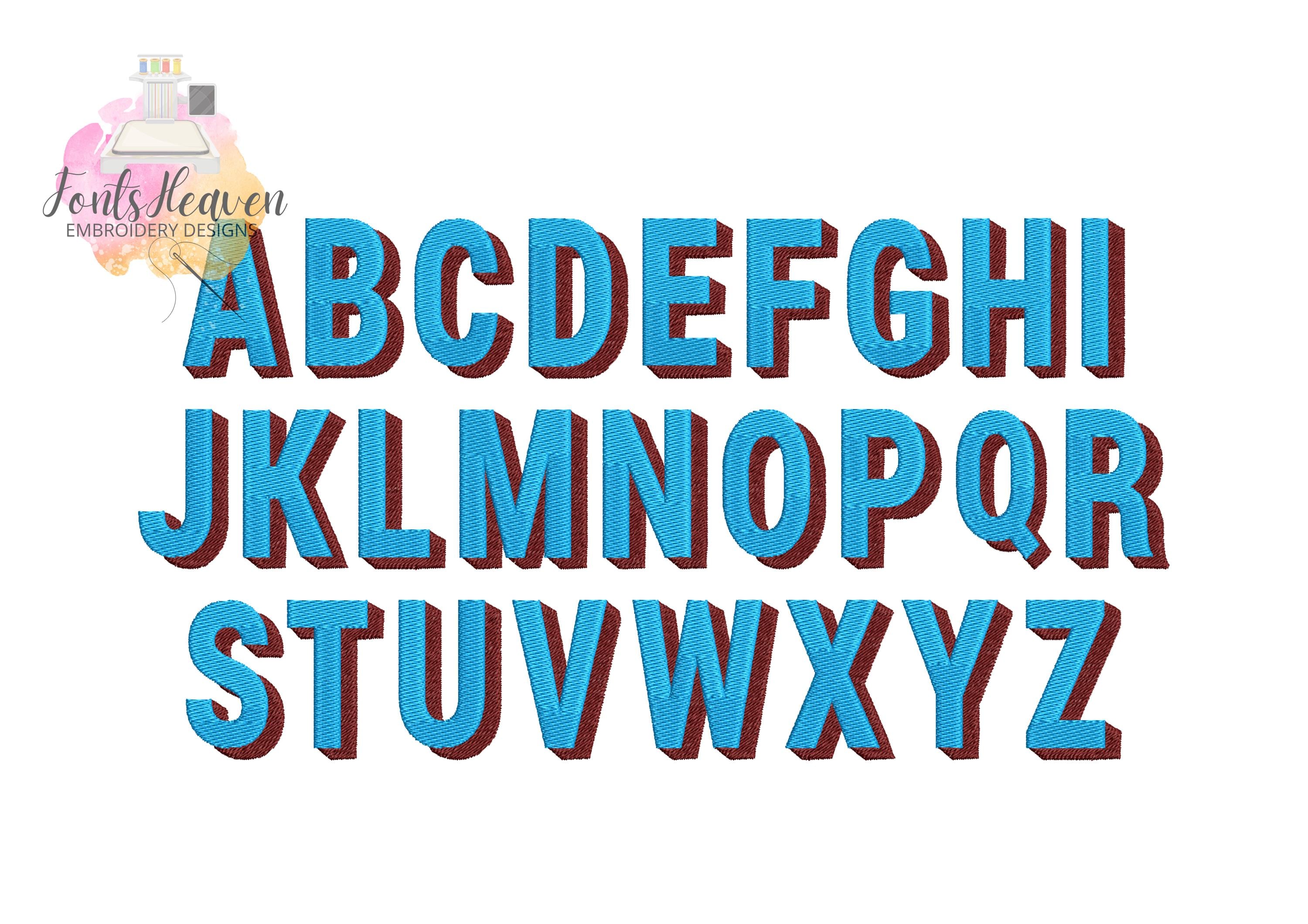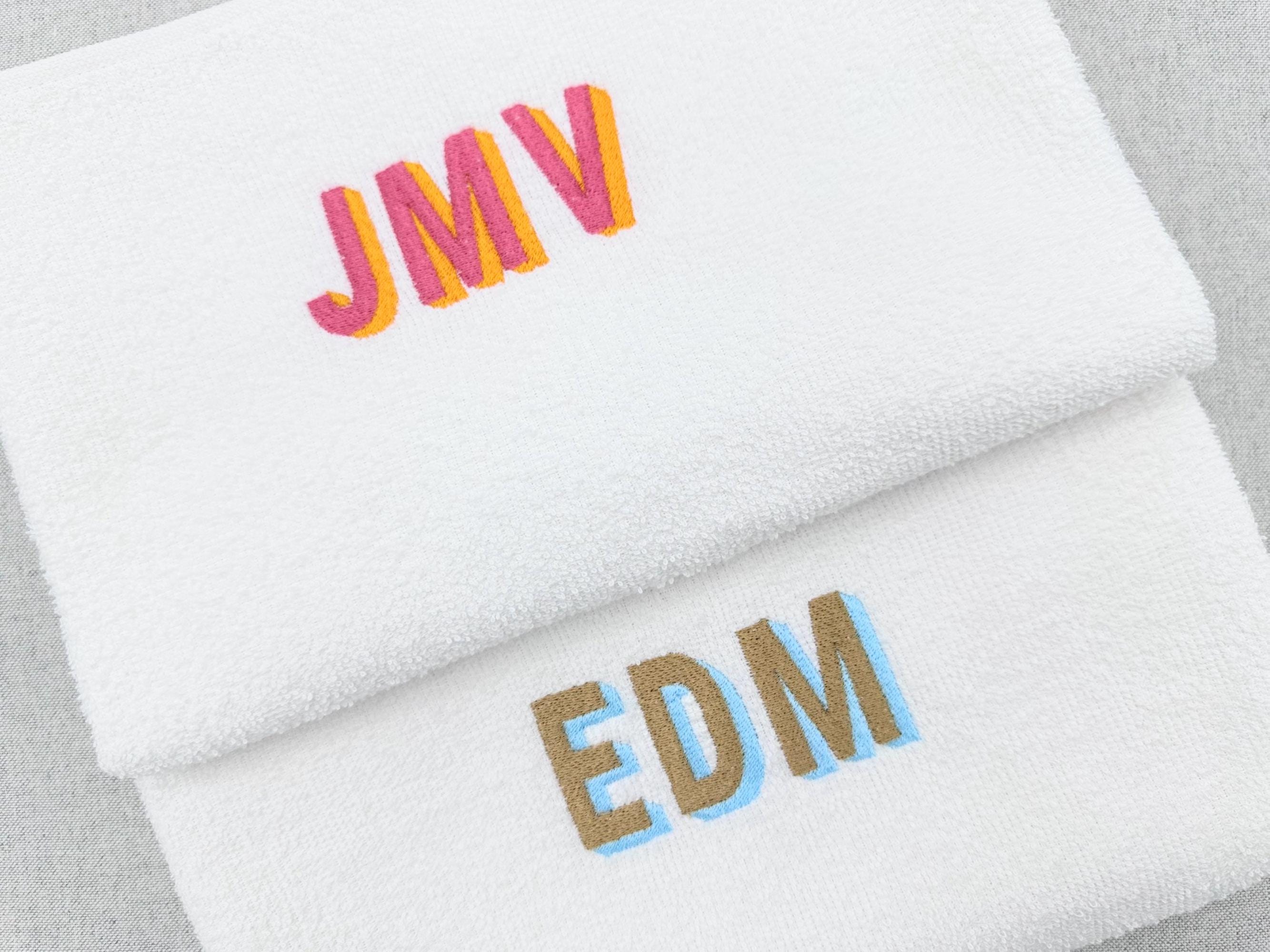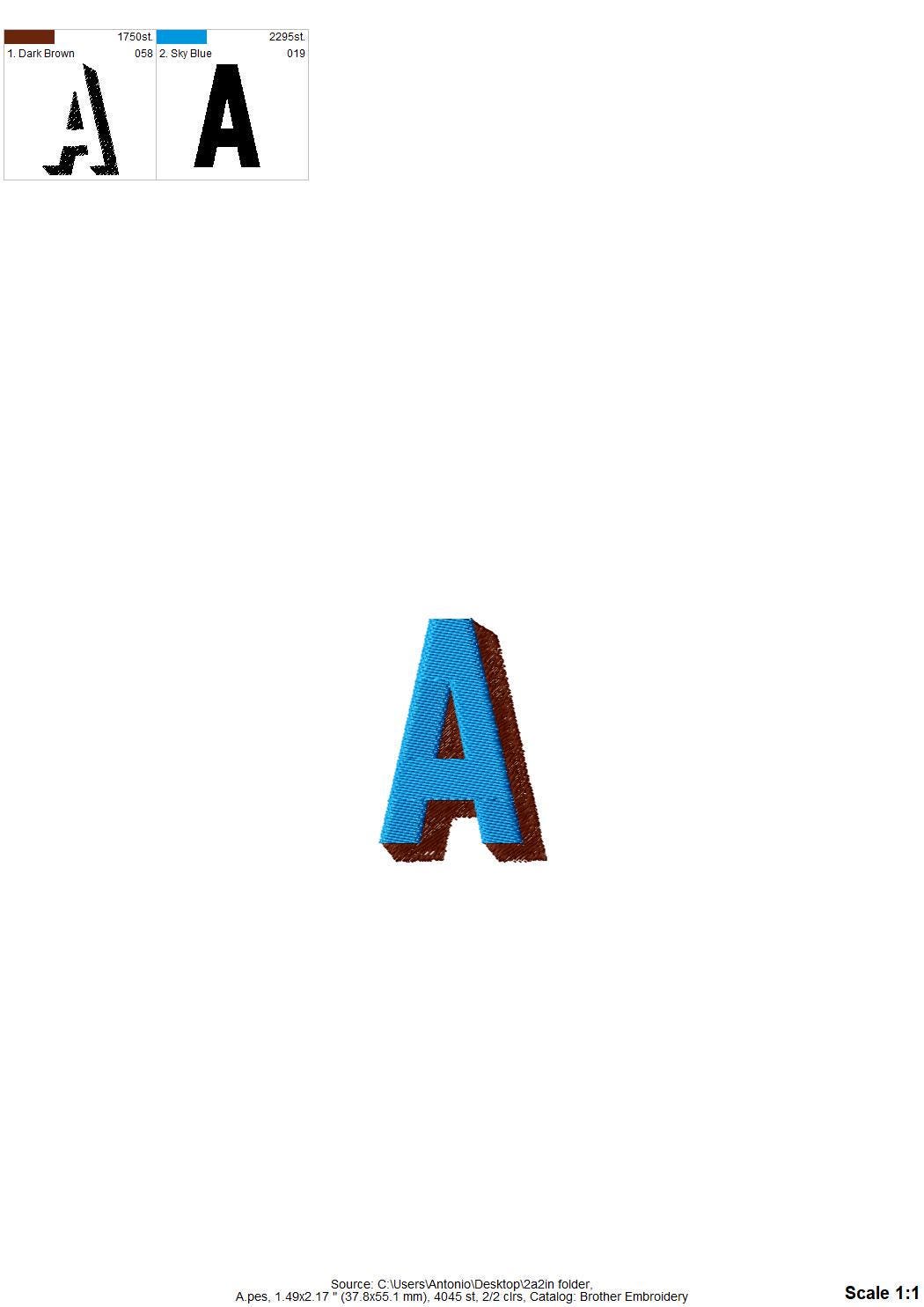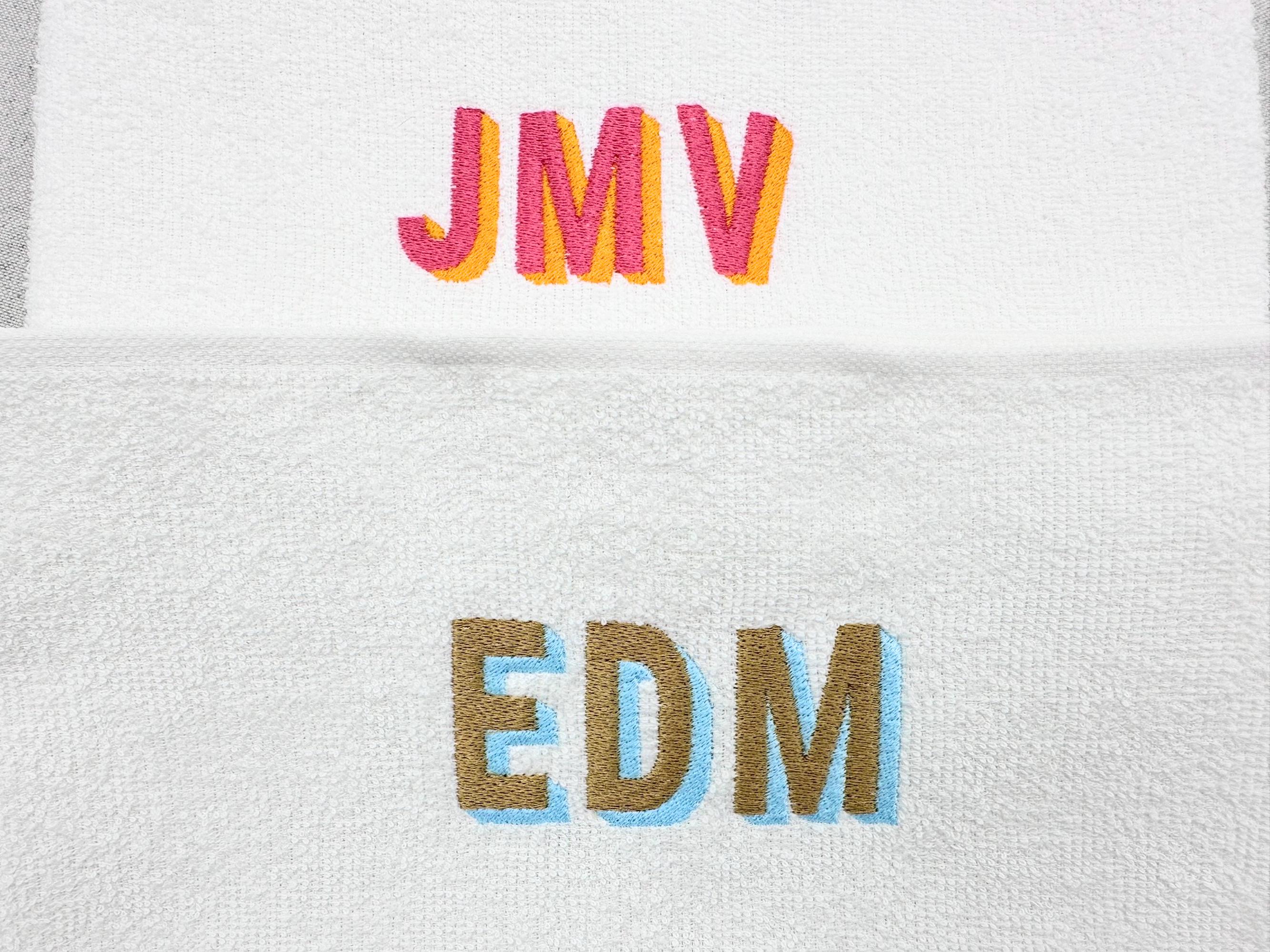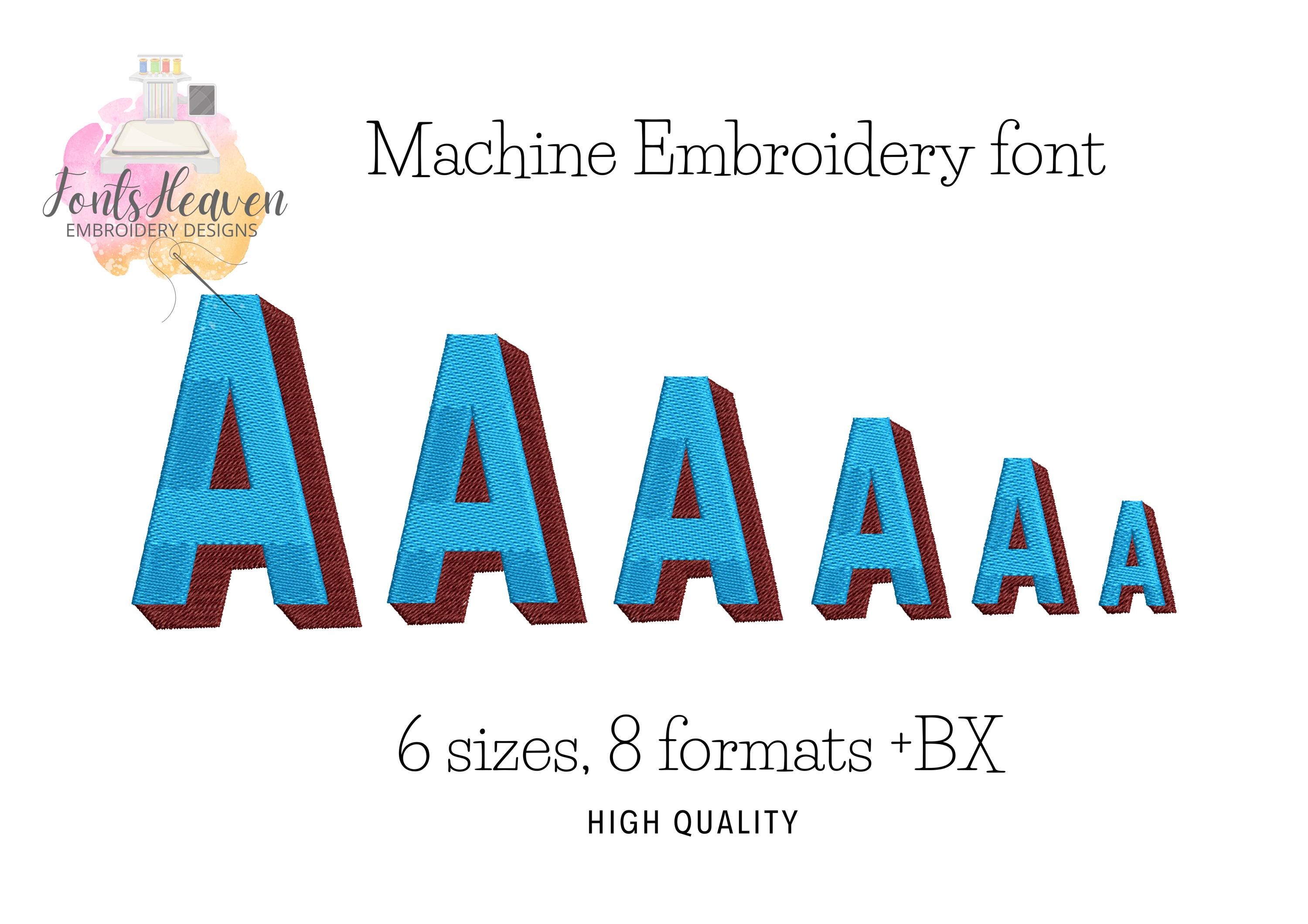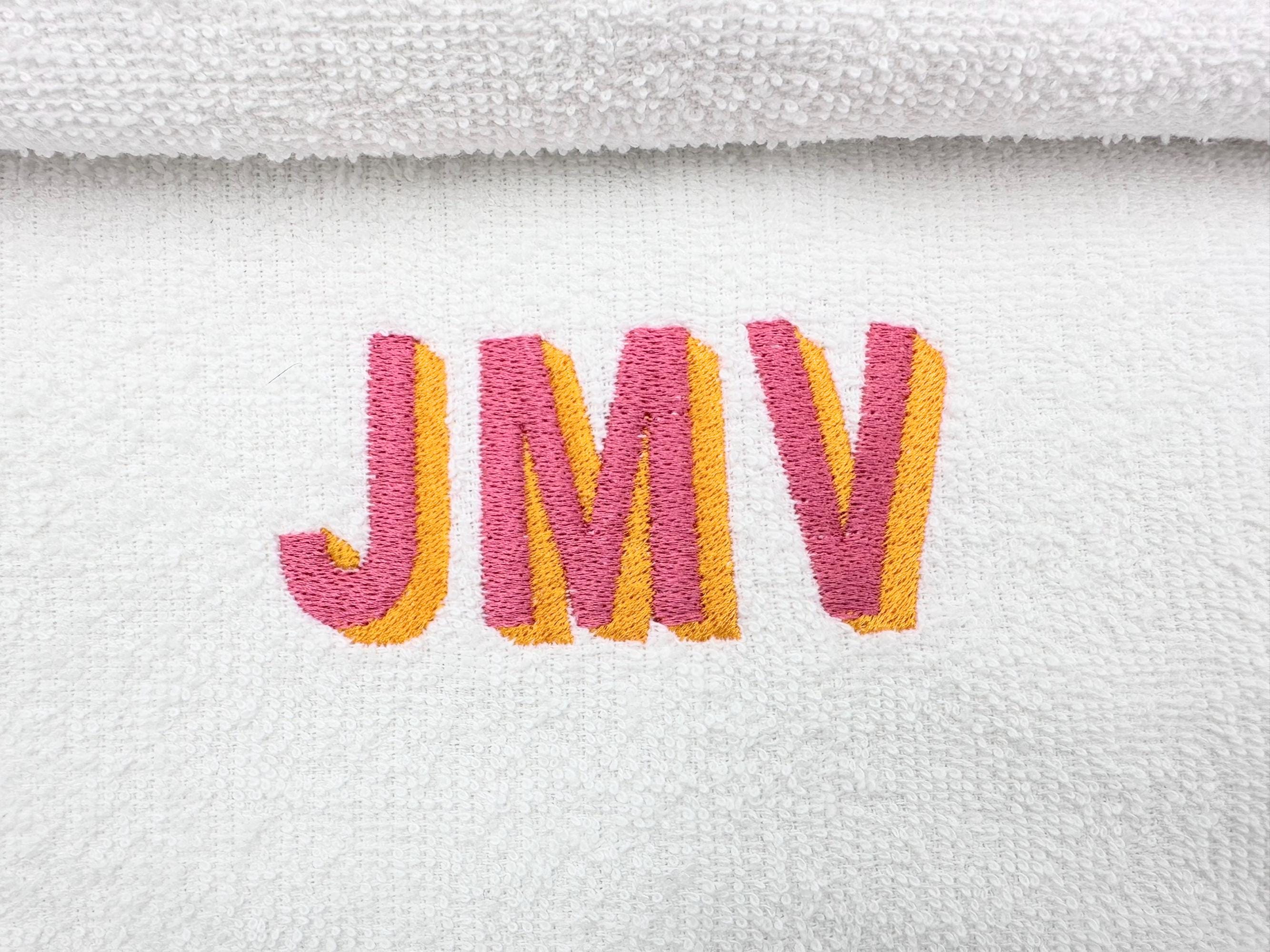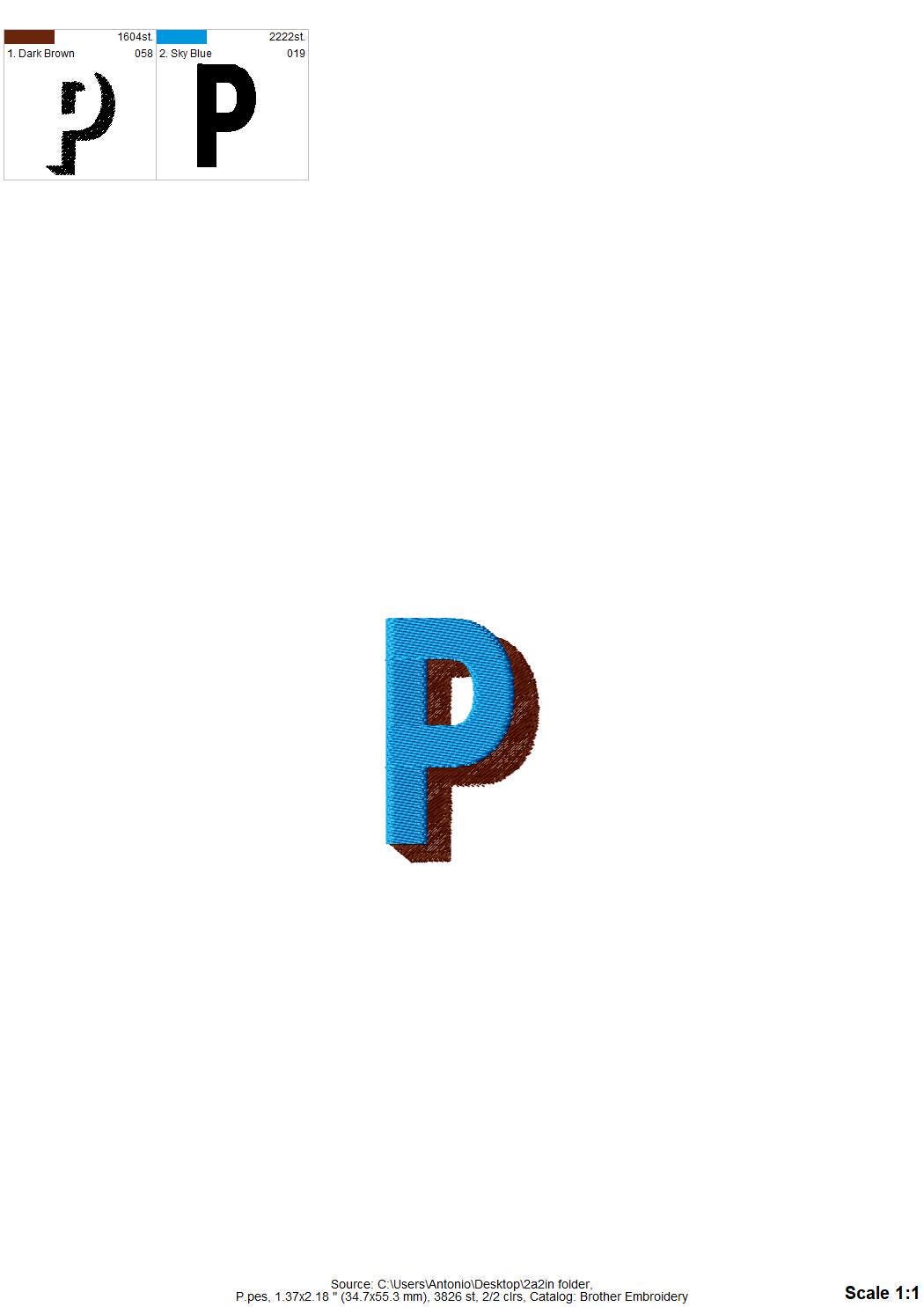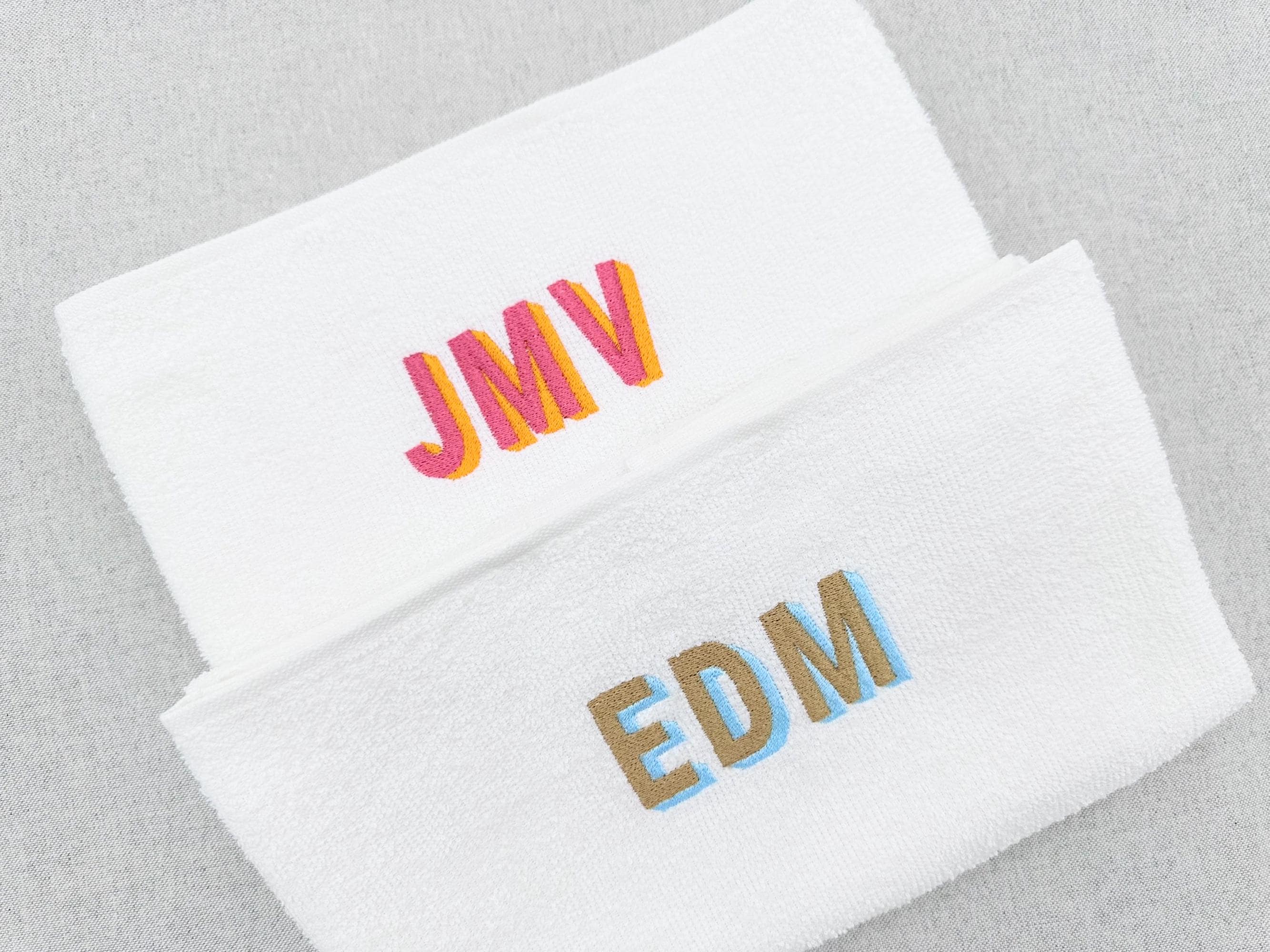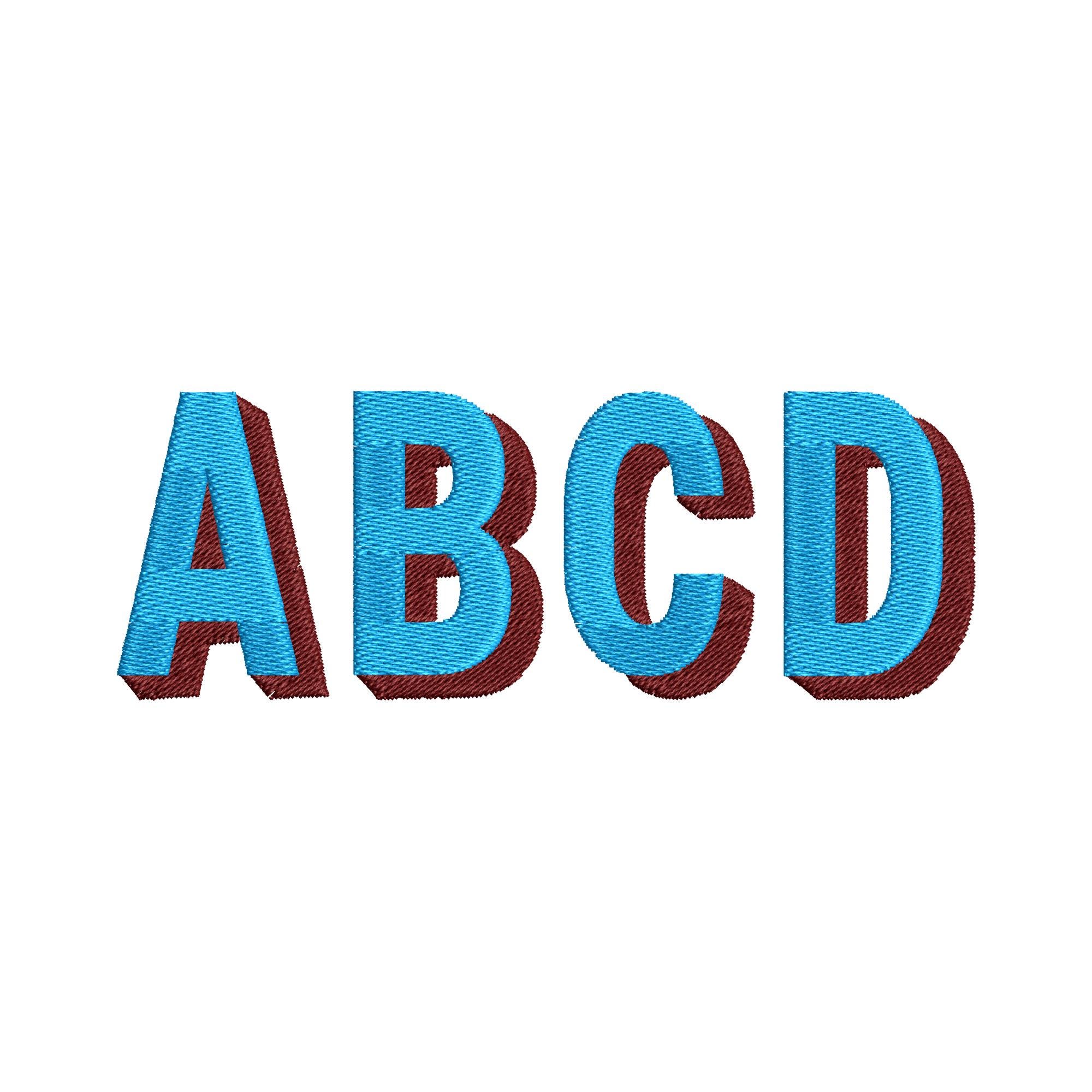
Bold Block Shadow FONT fill stitch Alphabet Monogram shadowed letters Machine Embroidery Designs many sizes 1 up to 3 inches, BX
Entire alphabet uppercase letters A-Z.